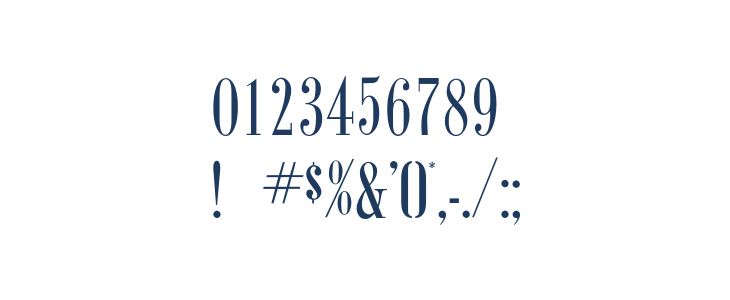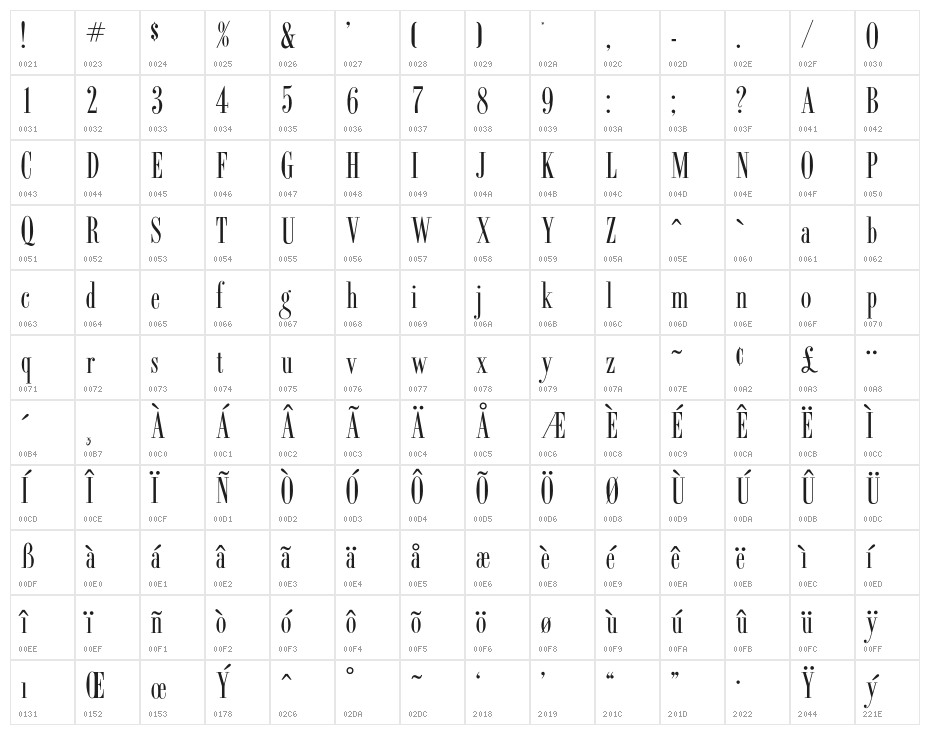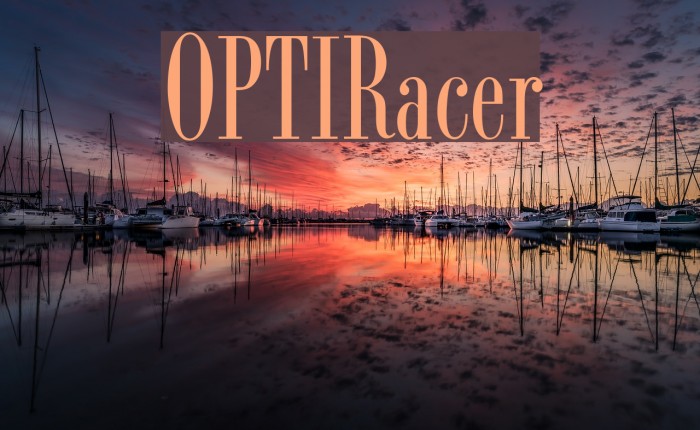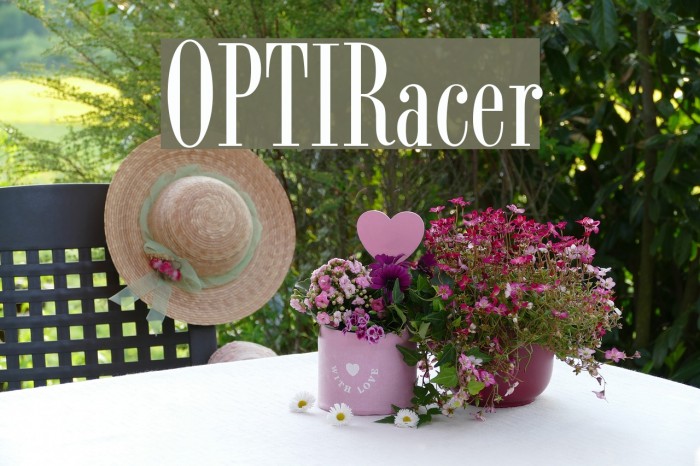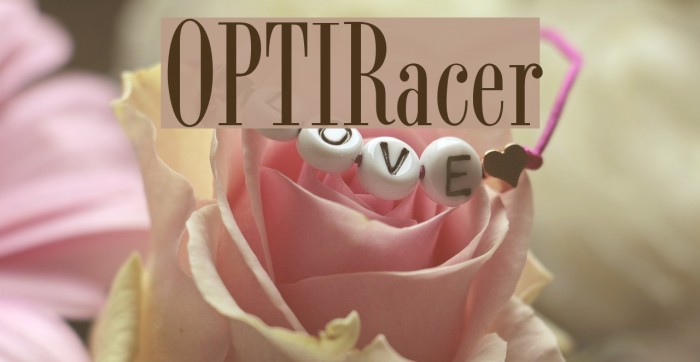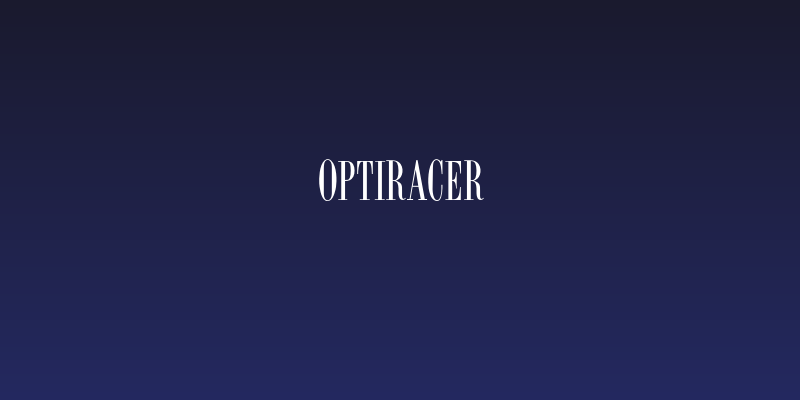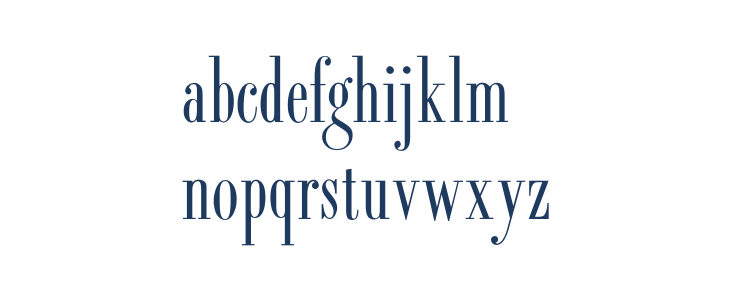
OPTIRacer Font
OPTIRacer Description
This font exhibits a classic and elegant style with high contrast between thick and thin strokes, giving it a sophisticated and refined appearance. The uppercase letters are tall and narrow, with sharp serifs that add a touch of formality. The lowercase letters maintain a similar narrow structure, enhancing the font's cohesive look. The numerals are consistent with the overall design, featuring the same high contrast and narrow form. Special characters are well-integrated, maintaining the font's elegant aesthetic. This font is ideal for projects that require a touch of sophistication and elegance.
Overall StyleClassic
Proposed ProjectsIdeal for luxury branding, editorial design, wedding invitations, and high-end product packaging.